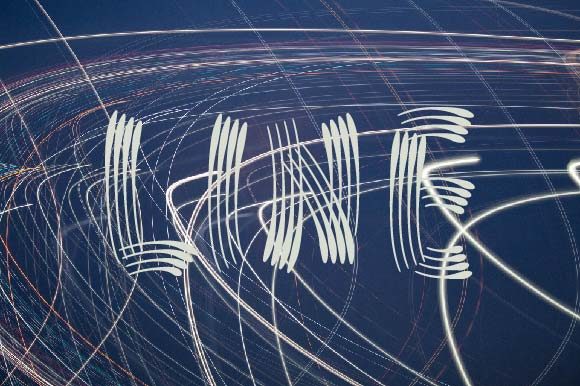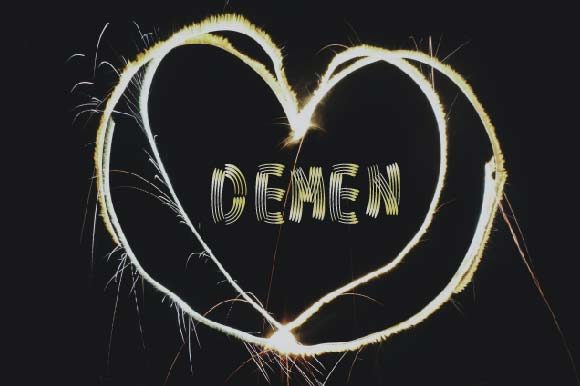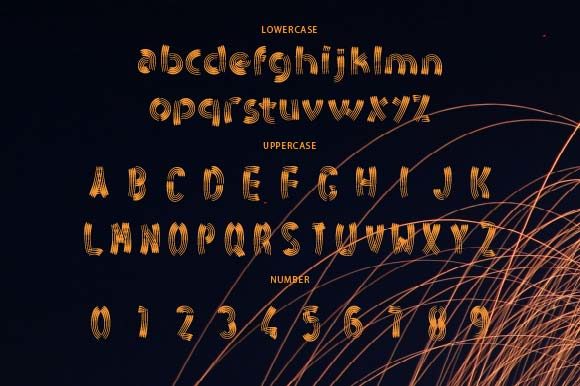
Introduction to Light Paint Font
Light Paint is an incredibly unique display font.
Light Paint Font offers exceptional quality and versatility, making it a valuable addition to your design toolkit. Whether you’re creating for personal projects or commercial use, Light Paint Font delivers professional results.